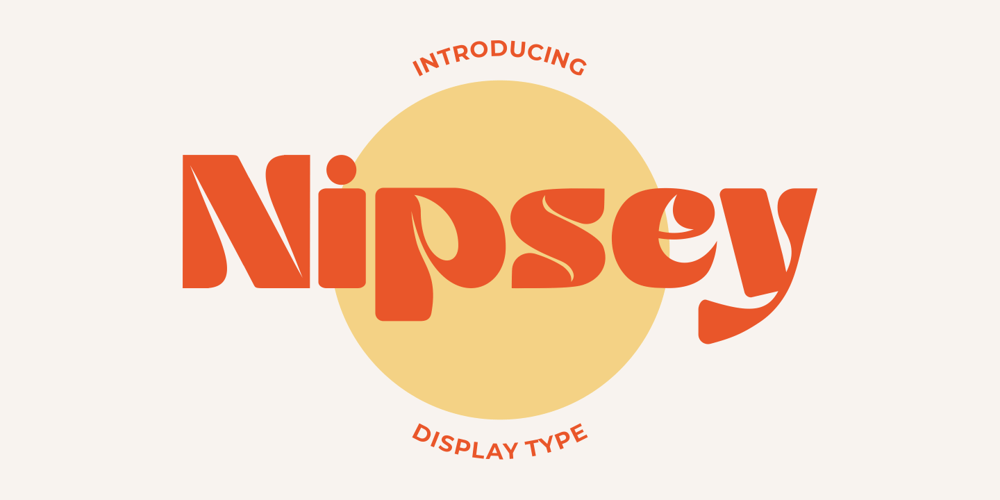
Nipsey Font Family was designed by Putra Novembria Candra Kusuma and published by Putracetol. Nipsey contains 1 styles and family package options. Introducing Nipsey – a unique display font inspired by vintage albums and posters from 1970s music bands. With its classic typeface and groovy impression, Nipsey brings a fun and retro vibe to your designs. What sets Nipsey apart is the combination of various alternates, such as swashes, stylistic sets, stylistic alternates, contextual alternates, and ligatures, making this font even more distinctive and versatile.Nipsey is perfect for a wide range of display purposes, including album covers, posters, labels, t-shirts, apparel, signage, quotes, logos, greeting cards, logotypes, and more. Its eye-catching design adds a touch of nostalgia and personality to any project, making it stand out in a crowd.To access the alternative characters in Nipsey, you can use OpenType savvy programs such as Adobe Illustrator, Adobe InDesign, Adobe Photoshop, Corel Draw X version, and Microsoft Word. The OpenType features allow you to easily switch between uppercase and lowercase letters, as well as apply alternates and ligatures to create unique and customized lettering compositions.In your zip package, you’ll find the Nipsey font files in otf, ttf, and woff formats, providing versatility for different design projects. The font includes uppercase and lowercase letters, numerals, punctuation, and symbols, ensuring that you have all the elements you need for your designs.Nipsey also offers multilingual support, making it accessible for designers around the world to create designs in different languages. Whether you’re designing for English, Spanish, French, or any other language, Nipsey has got you covered.If you have any questions, feedback, or comments, feel free to reach out to PutraCetol Design Studio via PM or email. The team is happy to assist you in your creative endeavors.In conclusion, Nipsey is a unique and versatile display font that brings a fun and retro vibe to your designs. With its alternative characters and multilingual support, Nipsey offers endless possibilities for creating eye-catching designs for various display purposes. So, let your creativity flow with Nipsey and elevate your design projects to the next level! Thanks for choosing Nipsey from PutraCetol Design Studio. Happy Creating!